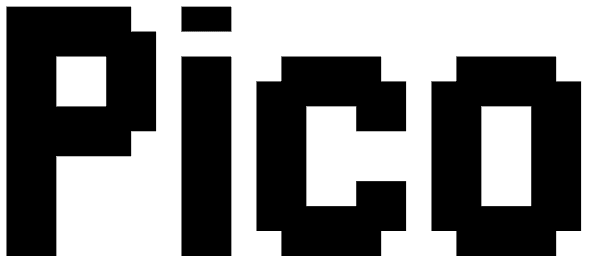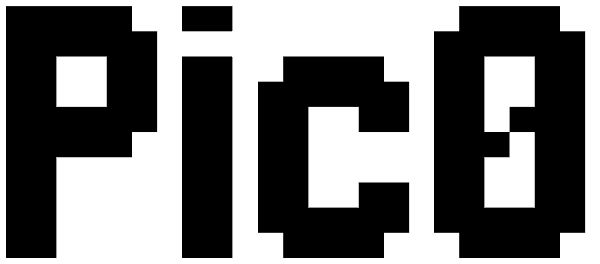
Pico
The aim of the Pico pixel typeface was to create a pixel typeface which looked good at both small and large sizes. The result was a surprisingly versatile font; one that works as well in small spaces such as button graphics as it would in larger...
Pico
Pic0